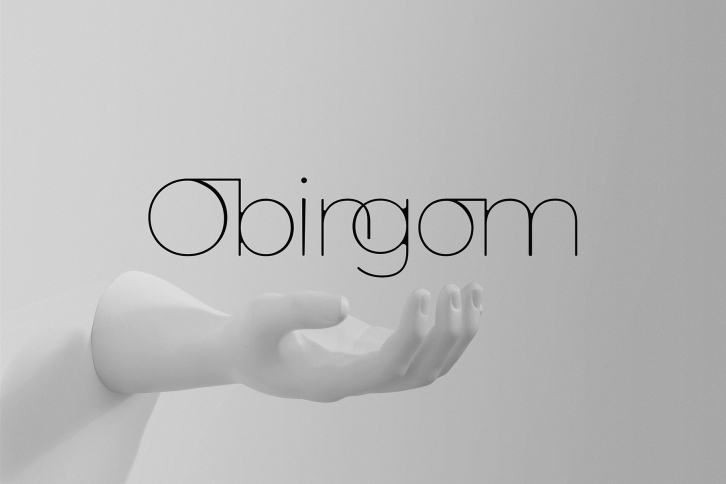
Obingom is a great font that was designed by CreativeStudioHZ. Imagine the amount of combinations you can create using this font! The archive is 11.64 MB and it was released on November 3, 2022. Obingom looks beautiful on wedding invitations, greeting cards, logos, posters, labels, t-shirt designs, logos, business cards and is perfect for use in ink or watercolor works, fashion, magazines, packaging and food menus, children's books and more!